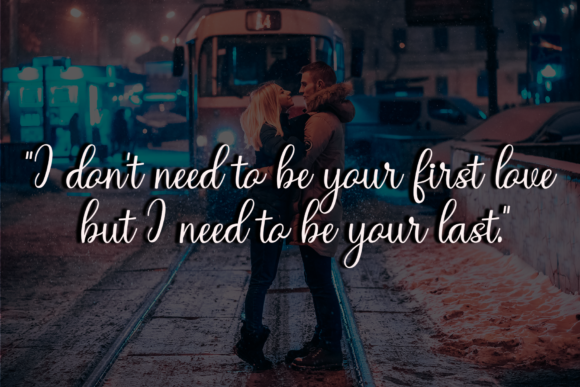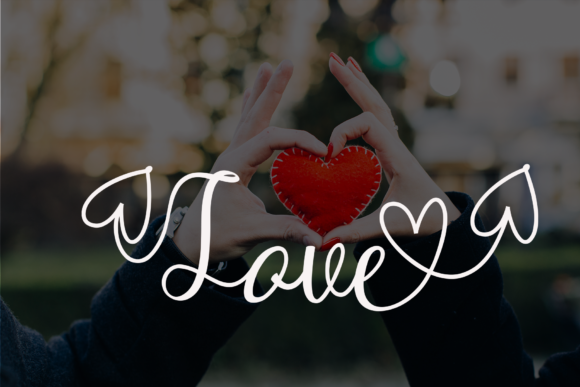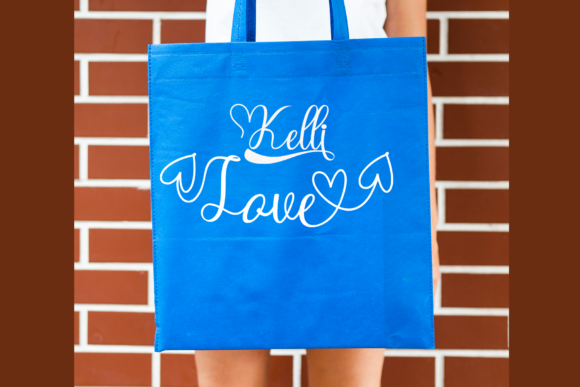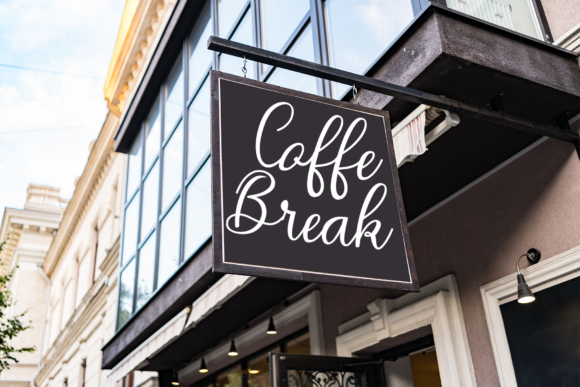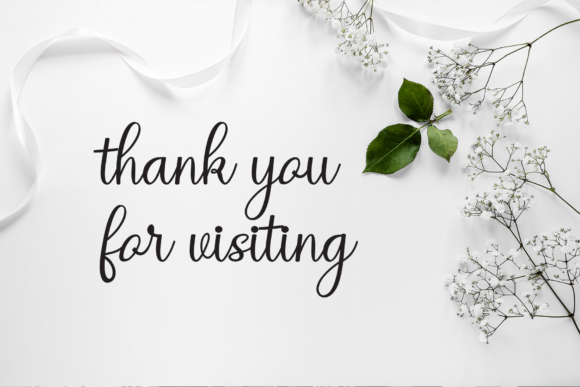
About Regina Lover Font
Regina Lover feels equally charming and elegant. It looks stunning on wedding invitations, thank you cards, quotes, greeting cards, logos, business cards and every other design which needs a handwritten touch.